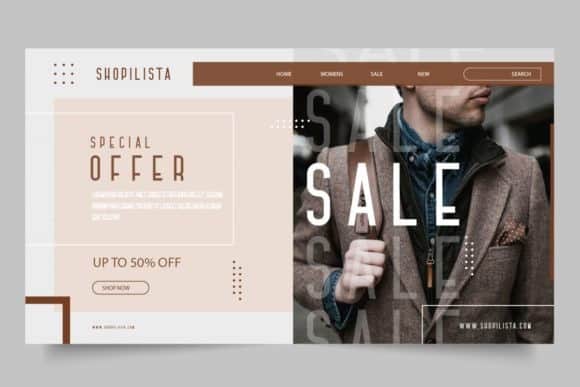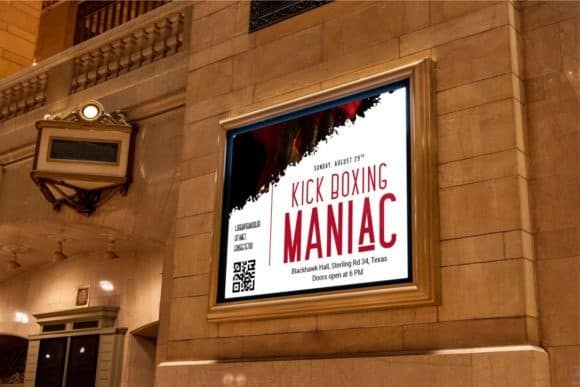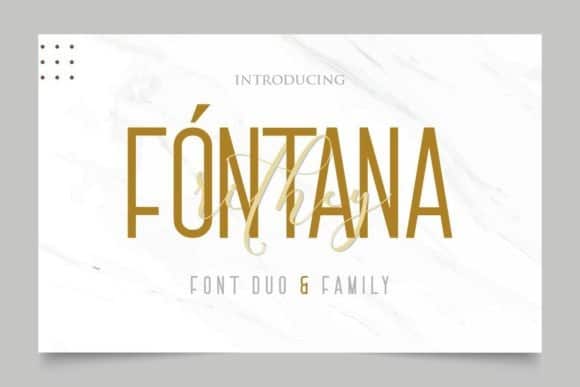
Fóntana Sans Serif Font
Fóntana Sans Serif Font is a low contrast sans-serif based on simple geographic shapeswith modern style. Incredibly versatile, this font fits a wide pool of designs, elevating them to the highest levels. Created for poster, web design, branding, illustrations, badges and some other works. Add this font to your favorite creative ideas and notice how it makes them come alive!